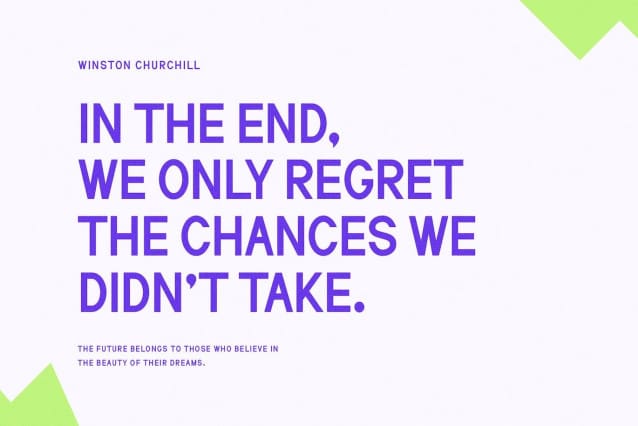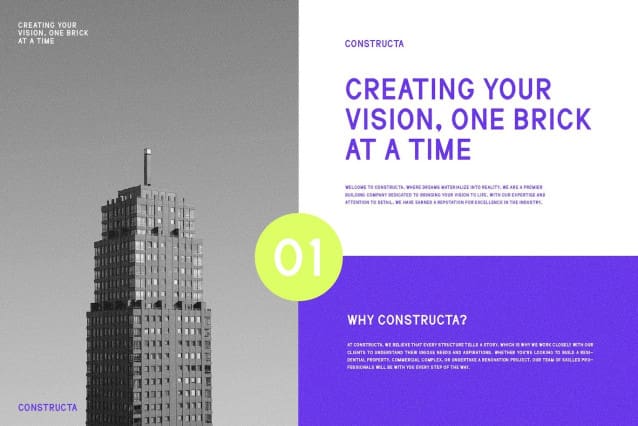
Jaspher Font
Jaspher Font, a modern sans serif font with an elegant style, perfect for brands, logos, invitations, magazines, product packaging, and more.